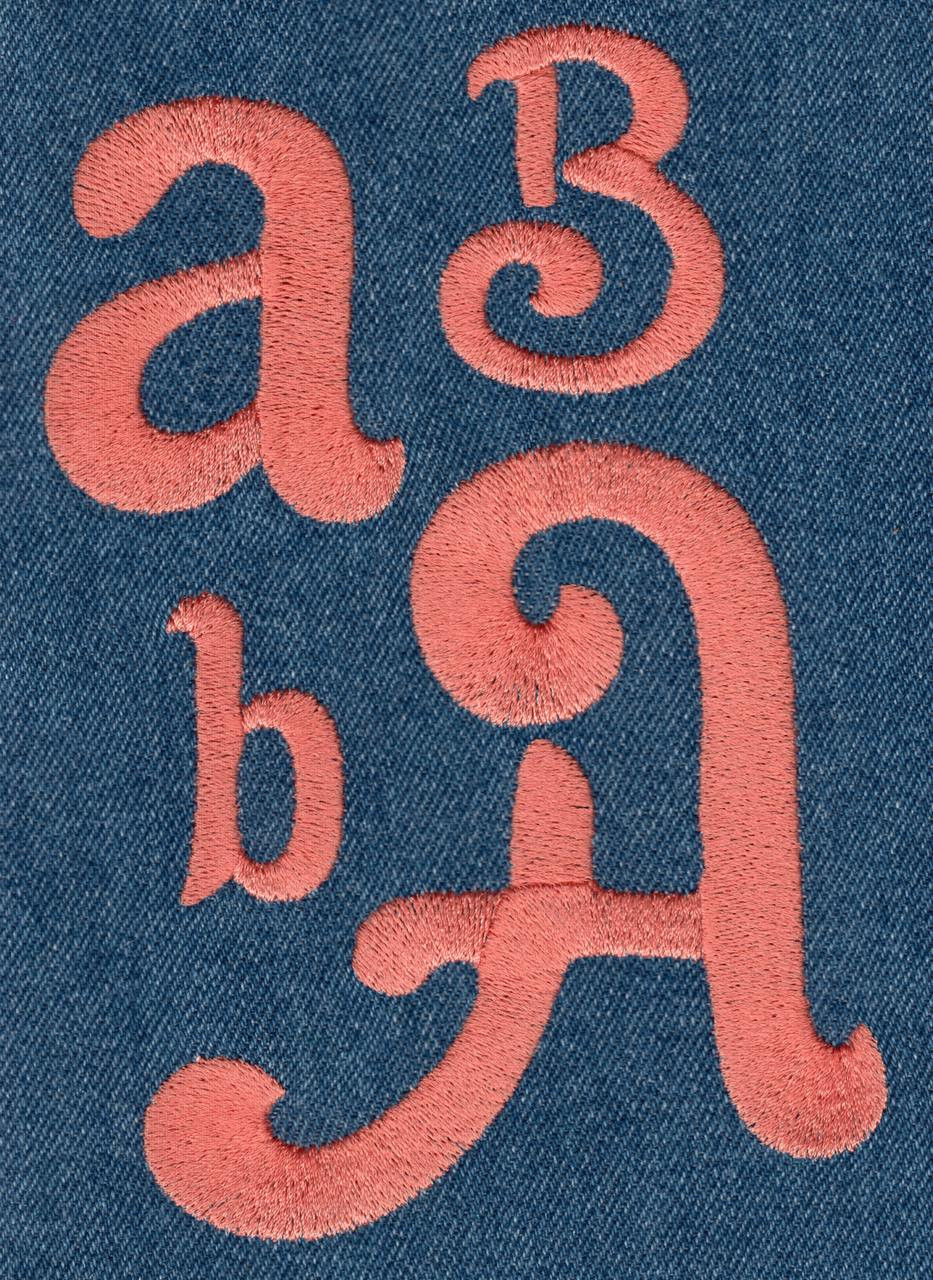
587 Gloria SatinFill Font
Gloria SatinFill Font comes in 2", 3", and 4" heights based on the capital "B"; Characters with ascenders and descenders vary in increased height. Includes uppercase letters, lowercase letters, numbers and six punctuation marks. All characters finished in SatinFill stitch.